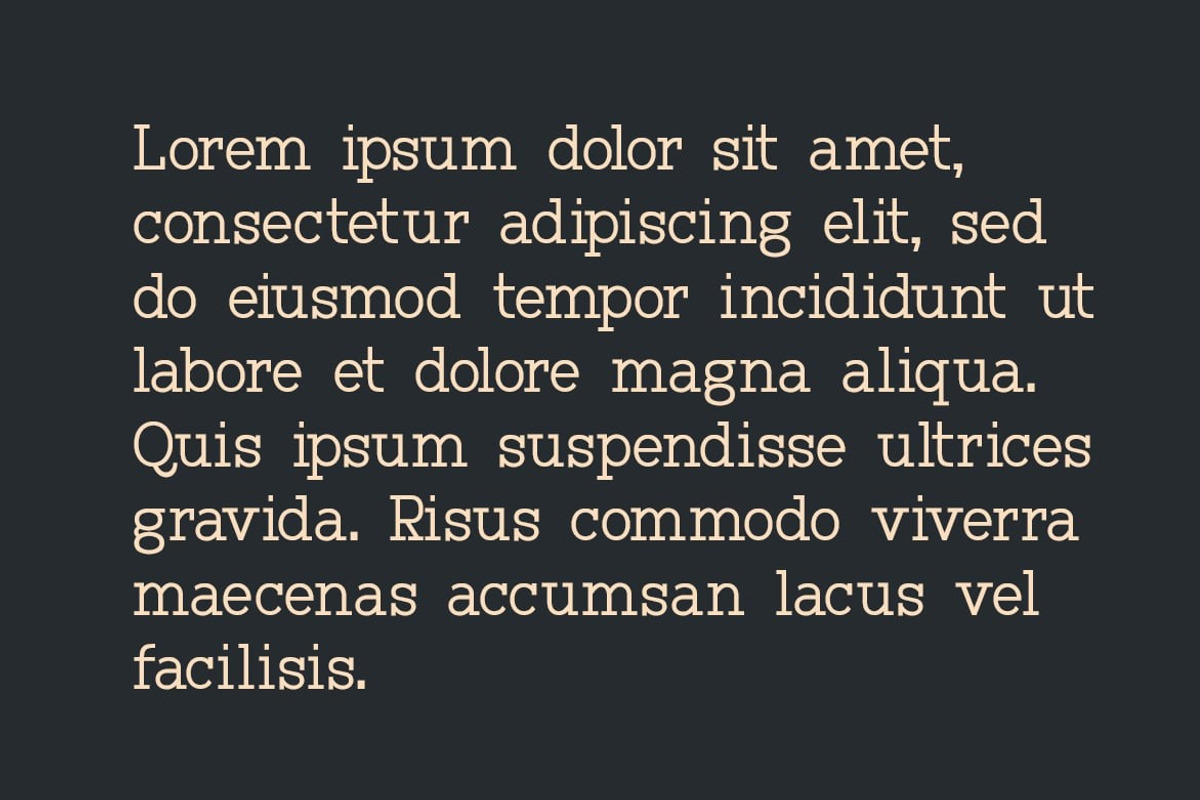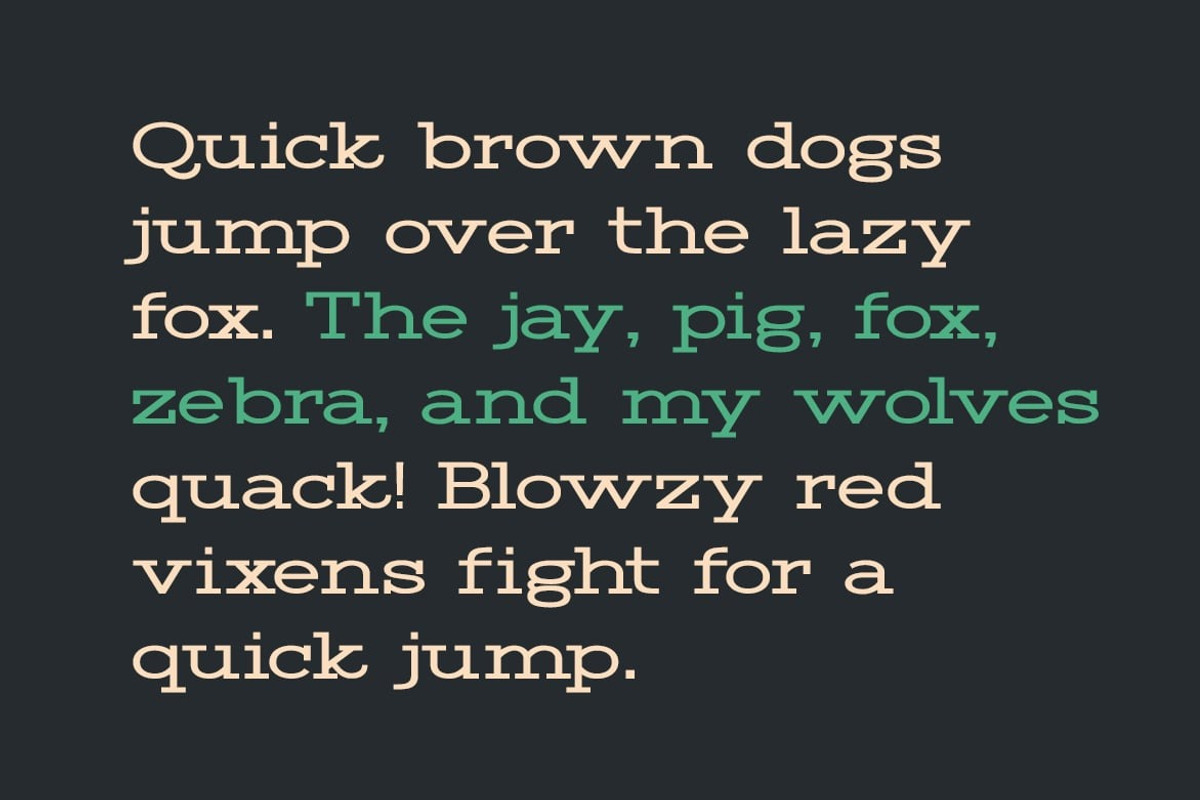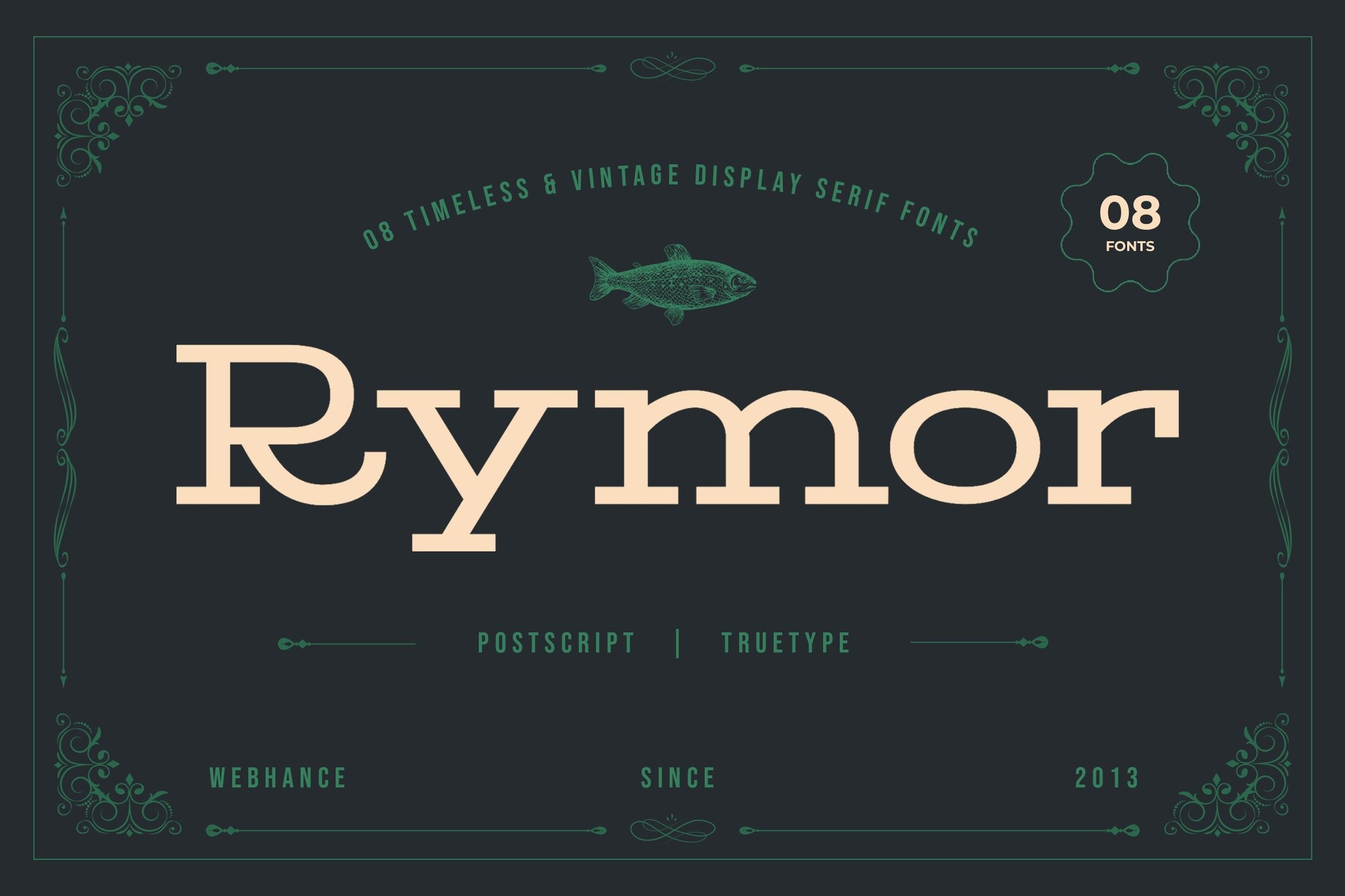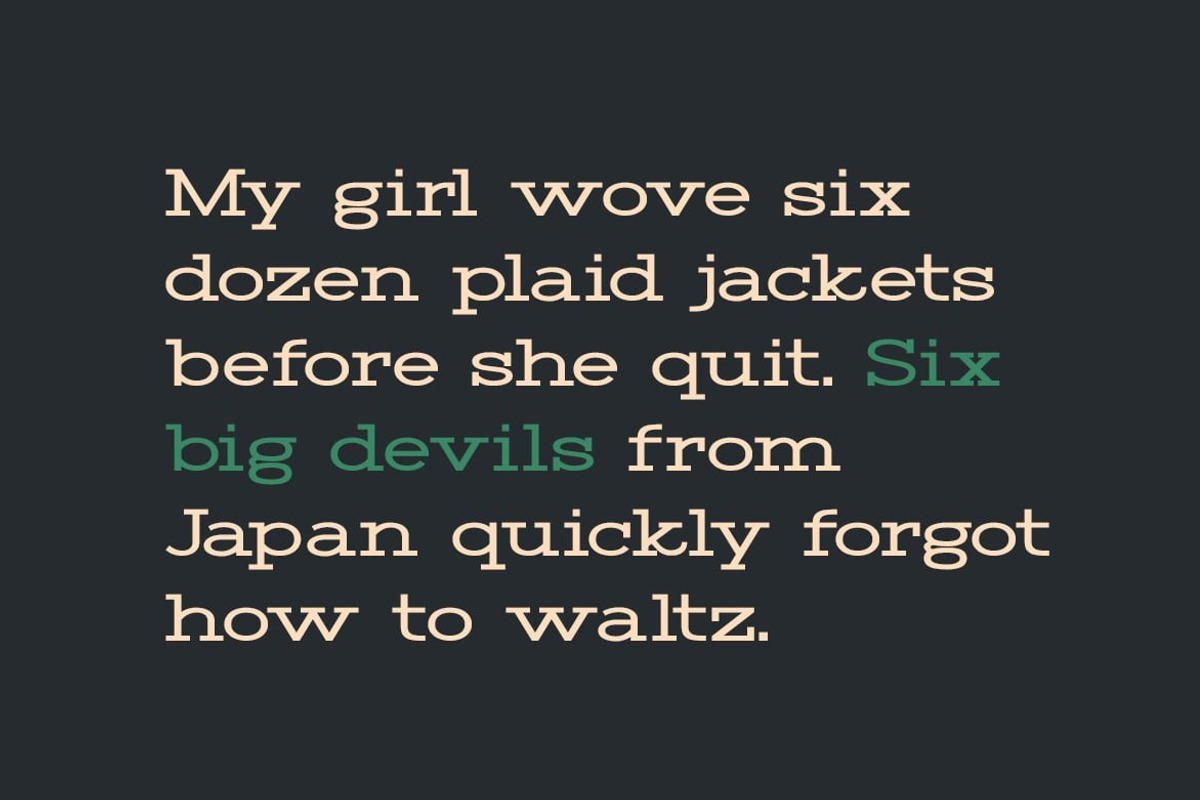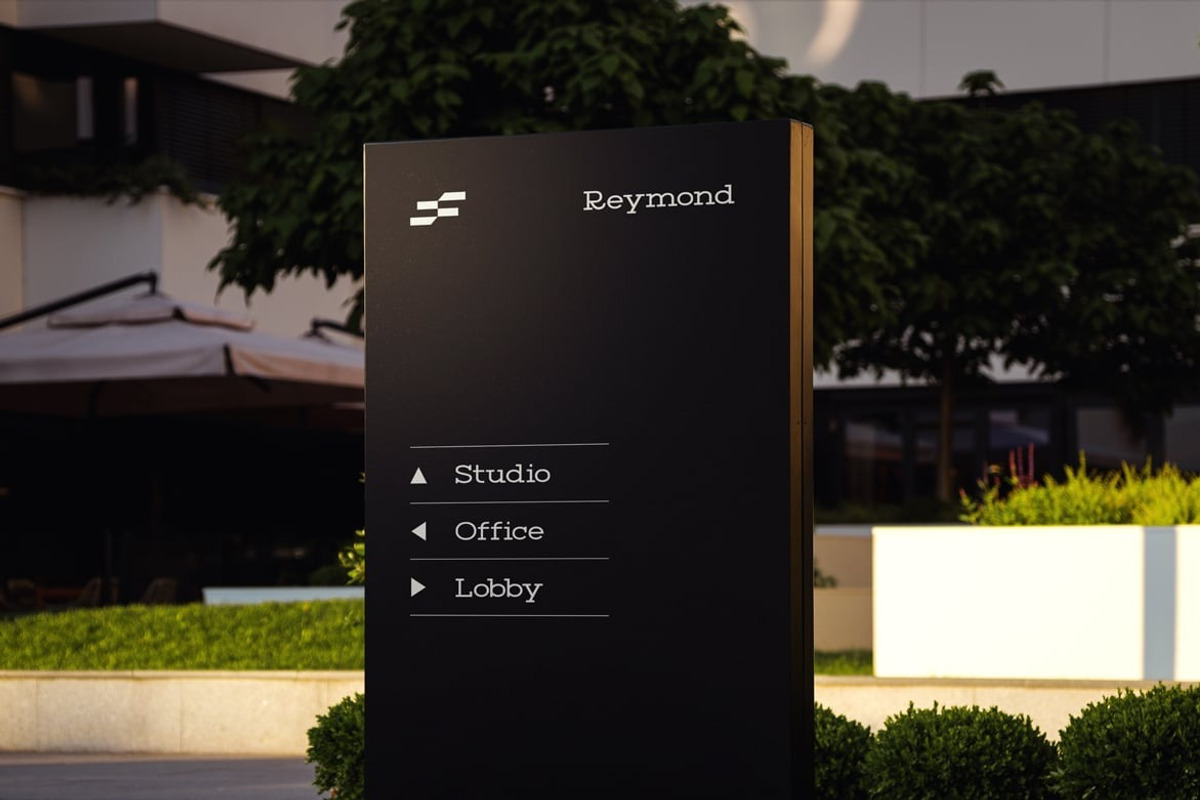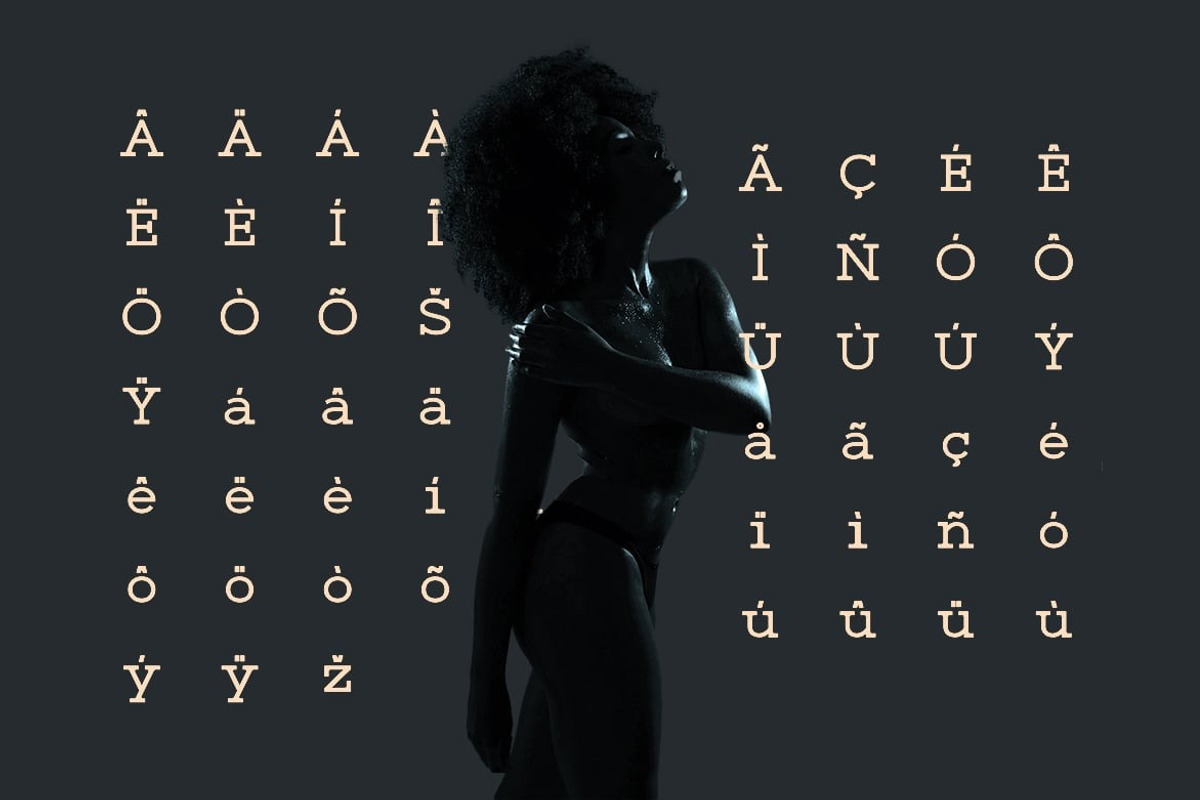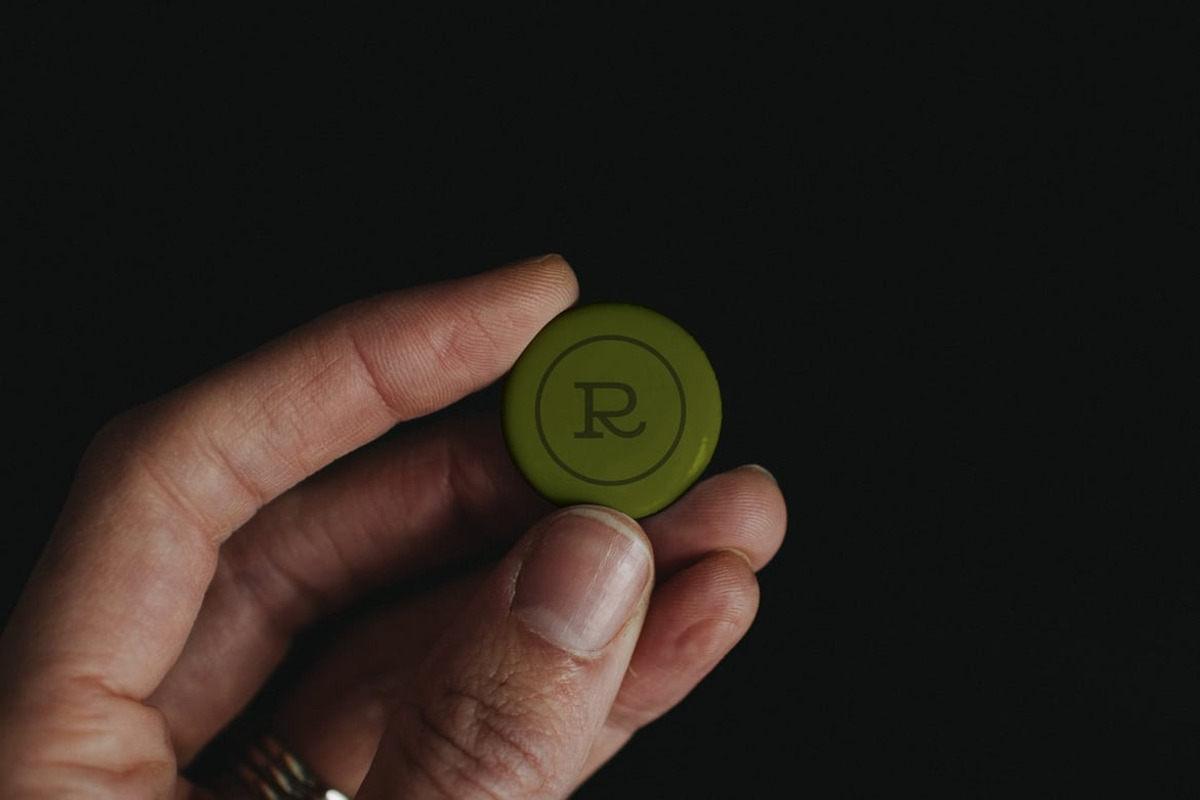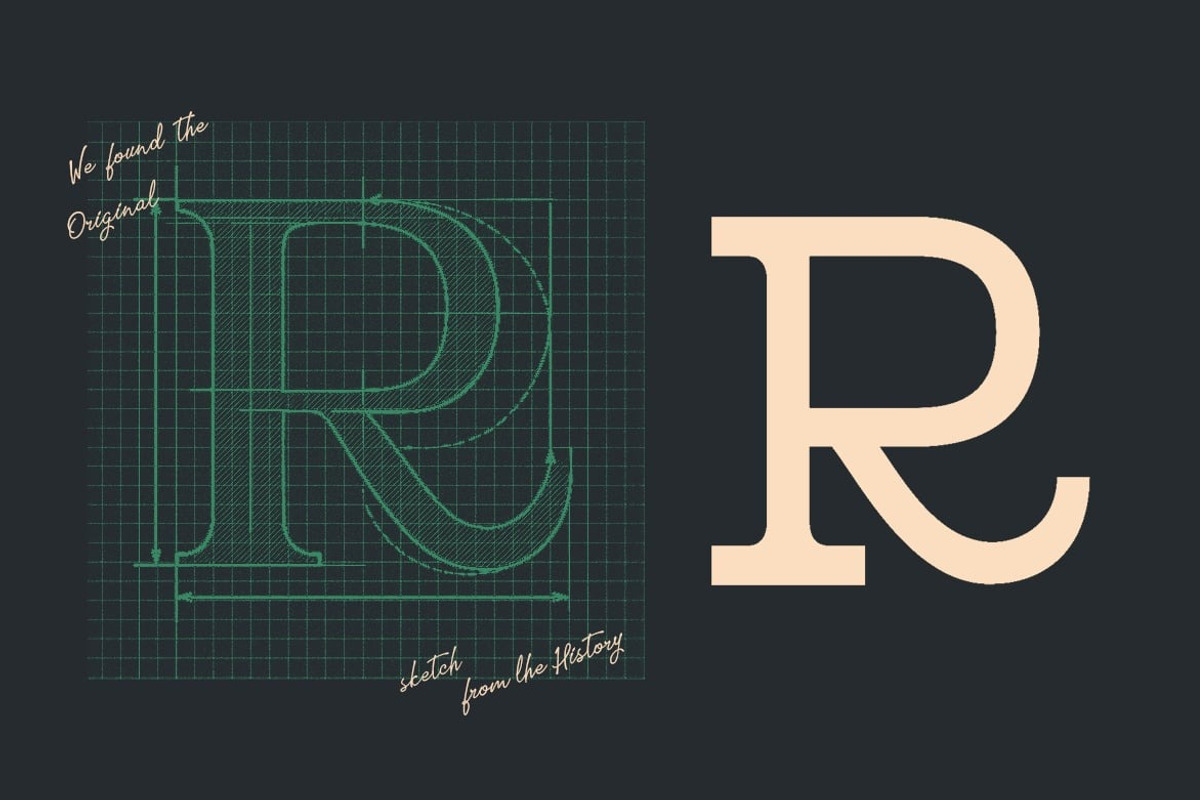
Rymor Display Font
Rymor Display is a vintage-inspired serif typeface that channels timeless elegance, nautical spirit, and refined craftsmanship. Designed with sharp slab serifs and smooth curves, Rymor blends classical balance with a fresh identity—perfect for projects that demand character and clarity. Whether you're designing book covers, brand identities, labels, or editorials, this font family offers eight styles to suit every creative direction.
With 04 timeless serif variants & 08 fonts, Rymor brings consistency, structure, and storytelling power to your work. Its adaptability shines across luxury branding, packaging, signage, magazines, and digital media. Each variant has been carefully built to maintain visual harmony while offering a unique tone, making it an essential companion for professional designers.
Beyond appearance, Rymor was created for real-world usability. Every detail is designed with purpose—delivering precision in layout, readability, and modern functionality. Whether you're crafting headlines or detailed typographic compositions, Rymor provides both vintage charm and professional polish.